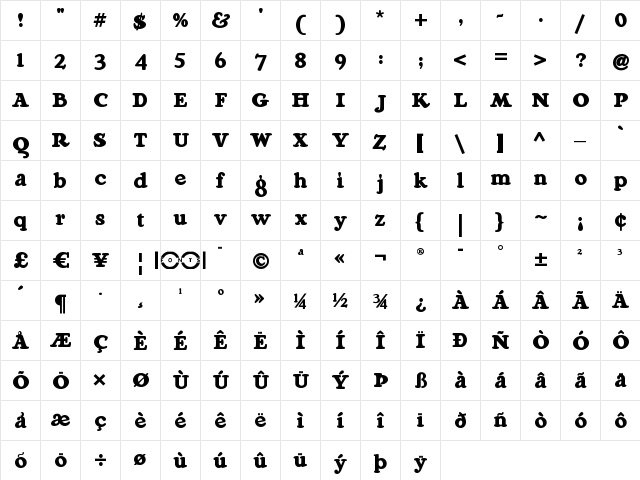
Ragg Mopp NF Regular
Regular · Nick's Fonts Nick Curtis ·
DesignerNick Curtis
Design Context for Ragg Mopp NF Typeface
Ragg Mopp NF offers clean, dependable letterforms without strong stylistic allegiance, making it a practical choice for designers who need flexibility.
Pro Tip: Use Ragg Mopp NF in both headline and body roles to test its range before committing to a single application.